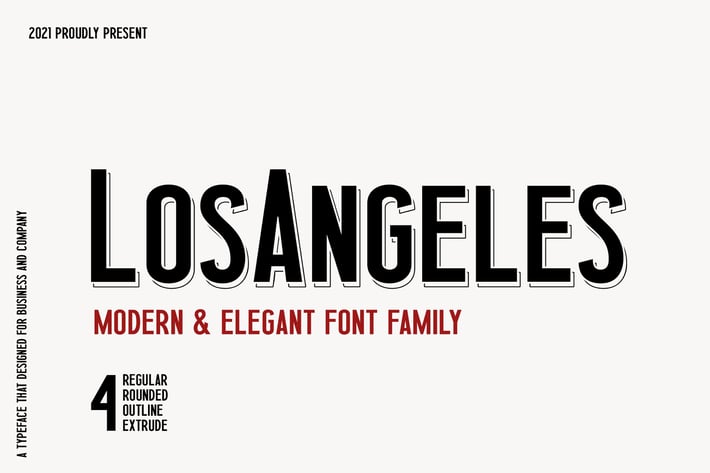
Los Angeles Business Font Family
Los Angeles is elegant and modern sans serif font family. It can easily be matched to an incredibly large set of projects, so add it to your creative ideas and notice how it makes them stand out!